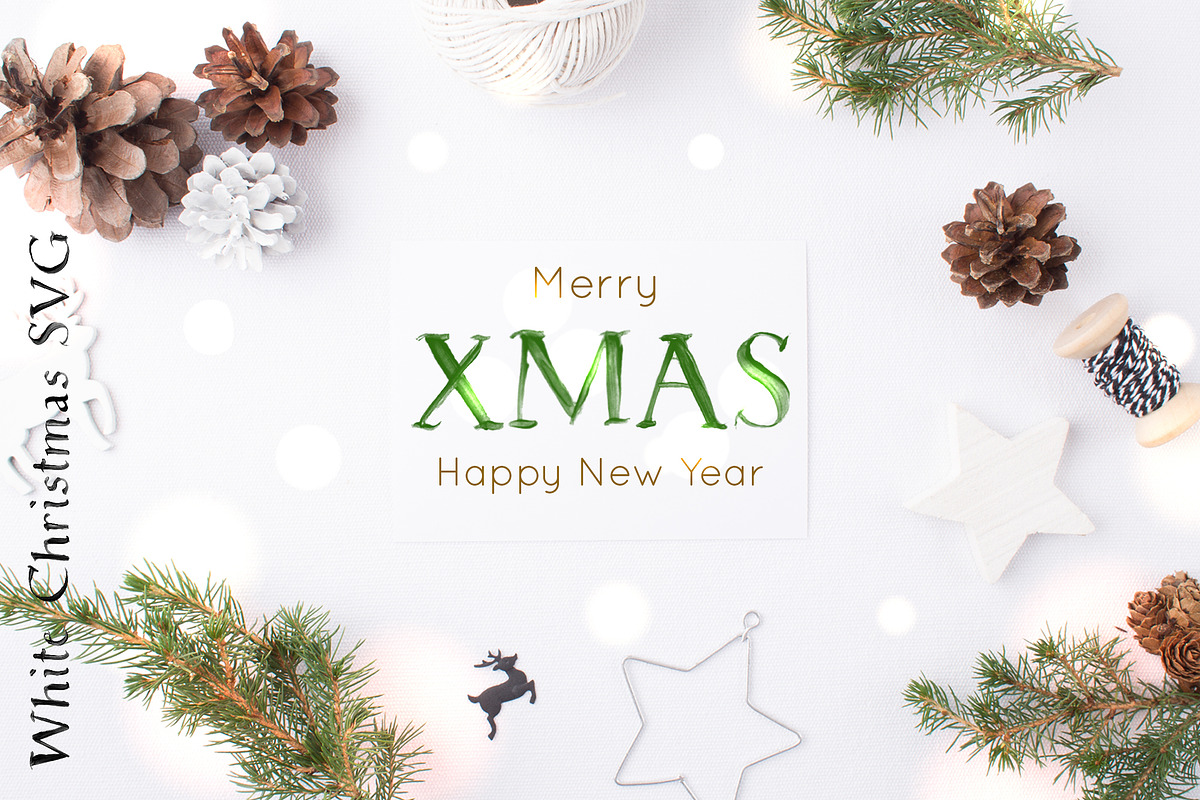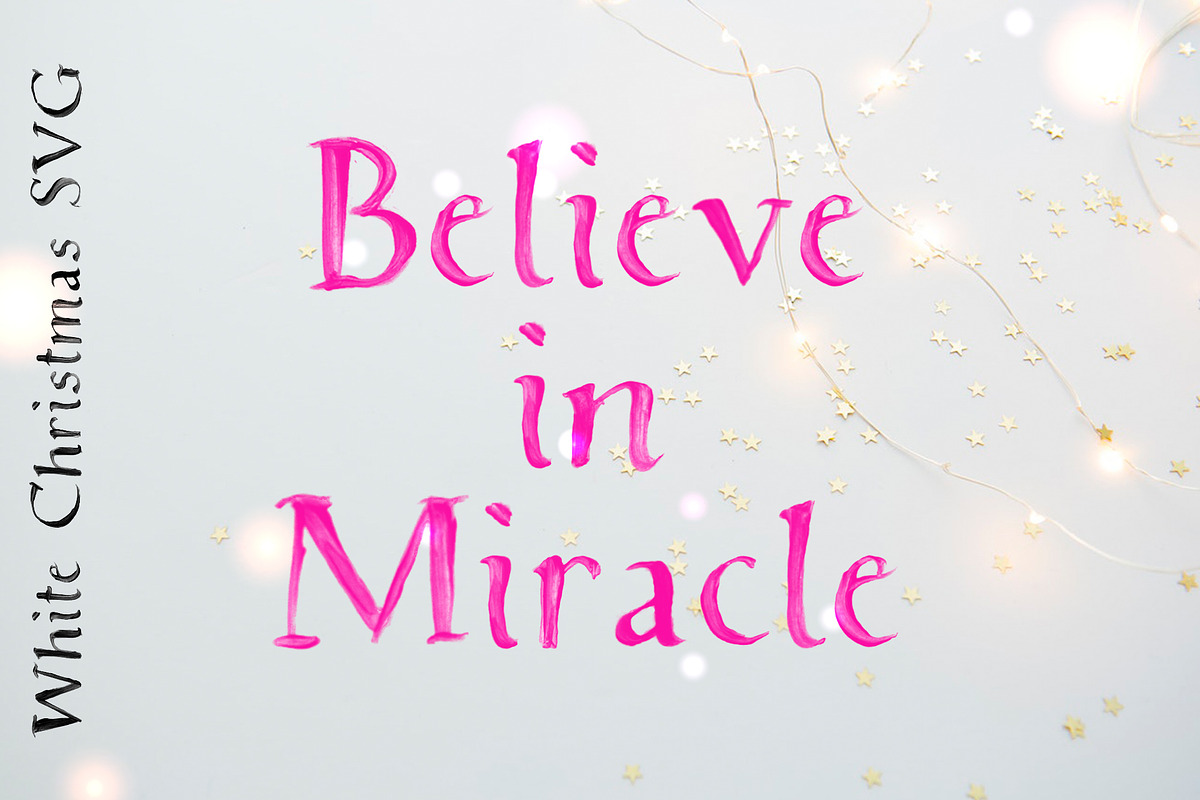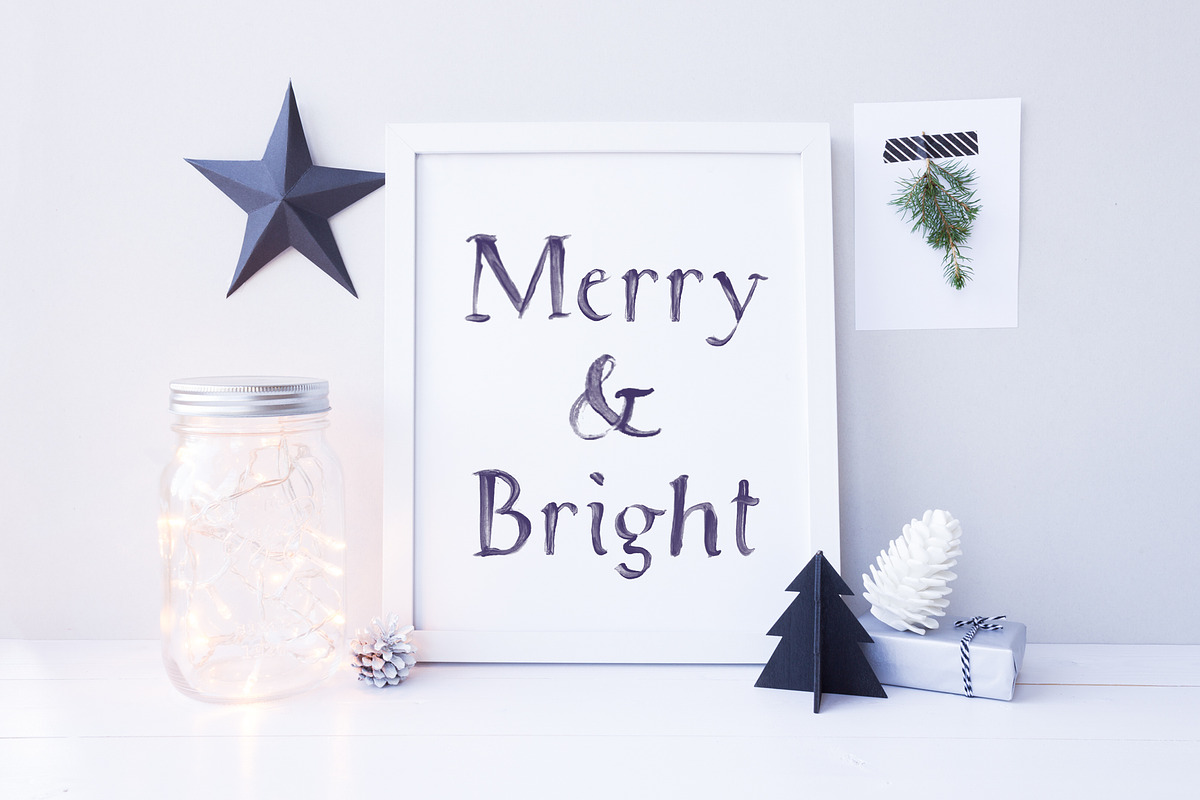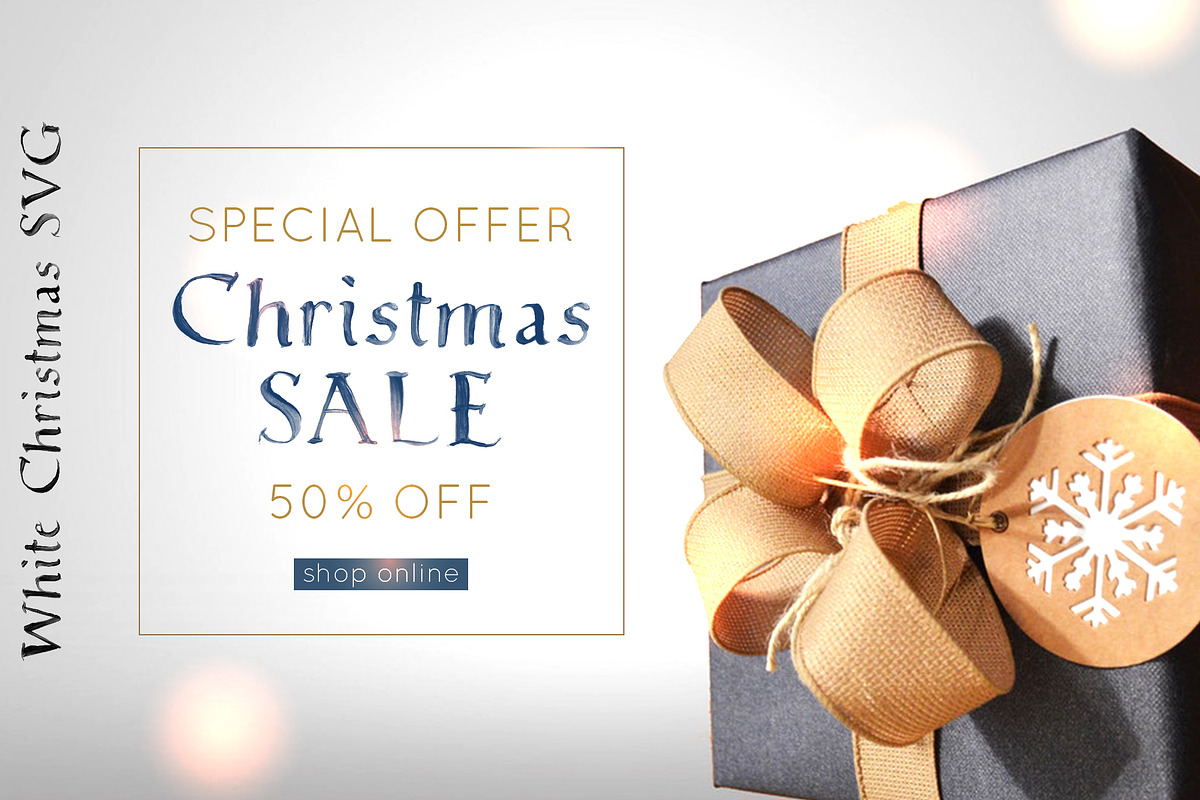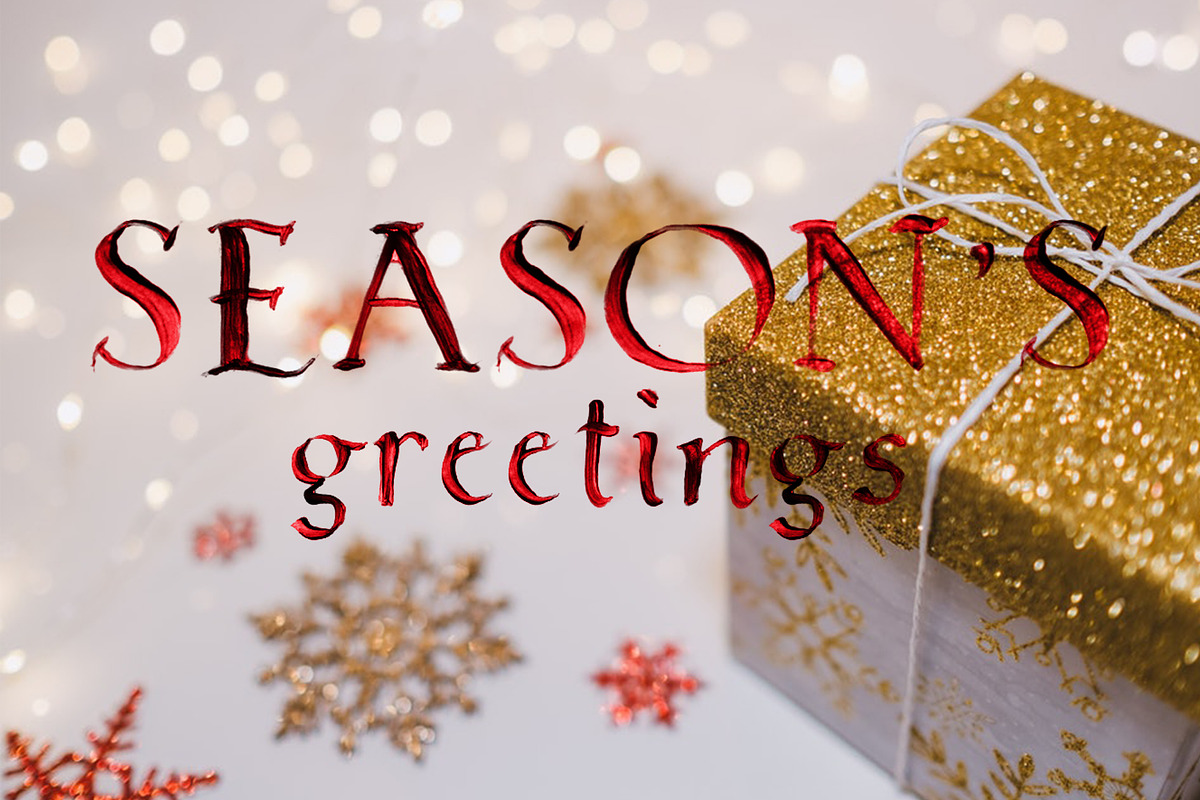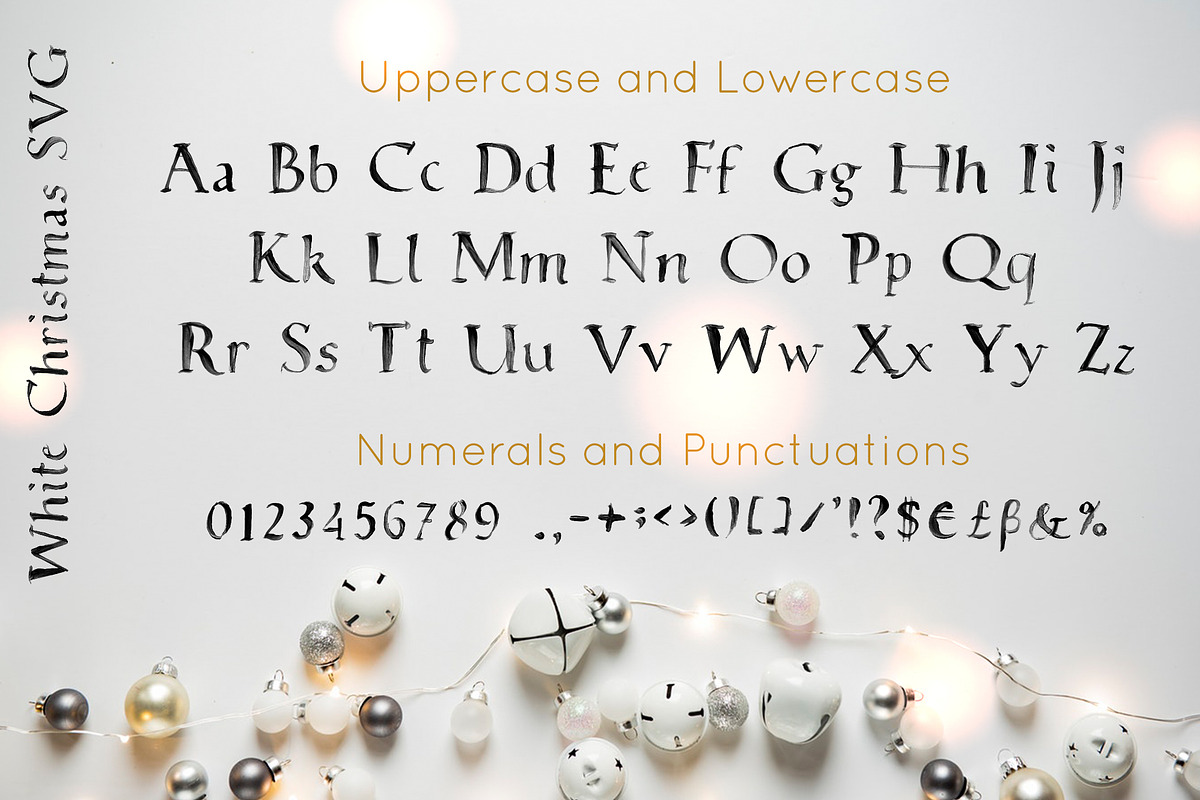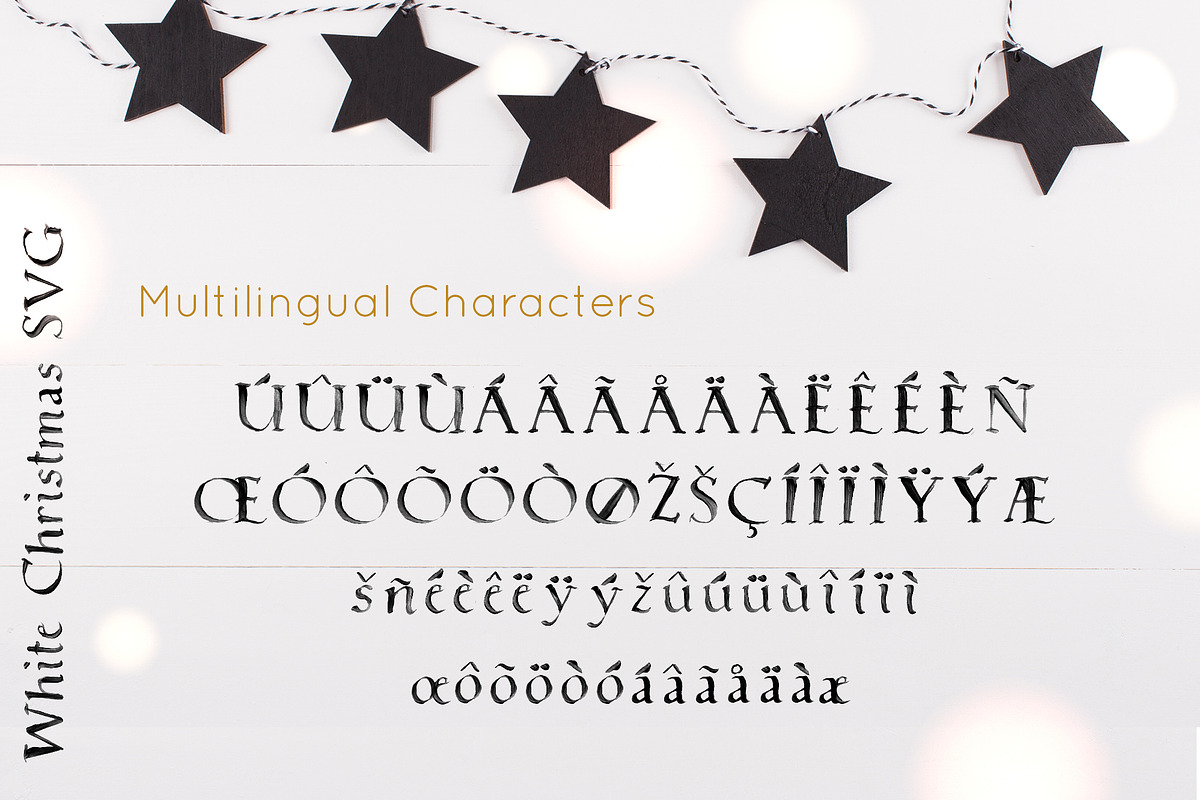
White Christmas SVG Font
Are you looking for Christmas season? Make your design awesome in the most special and lovely time of the year.
White Christmas is a beautiful brushed hand-painted serif SVG font. It is suitable for Christmas cards, wedding invitations, branding, stationery, blog design, custom stamps, or any design purpose. It is really unique because of ultra-textured and transparent effect. This font will help you to make your winter projects trully hand-painted realistic and natural.
White Christmas SVG font includes uppercase and lowercase letters, numbers, punctuations and multilingual support.
White Christmas SVG Font supports the following languages: English, Finnish, French, German, Italian,Norwegian, Portuguese, Spanish, Swedish, Swiss German.